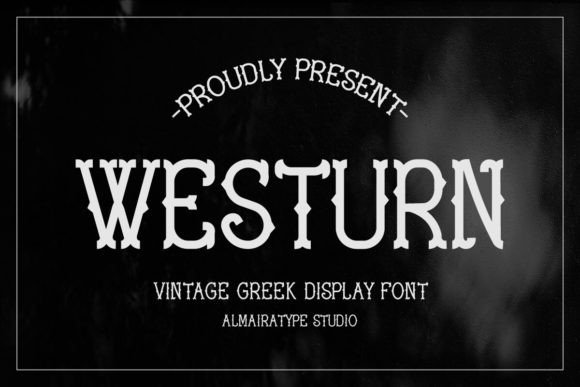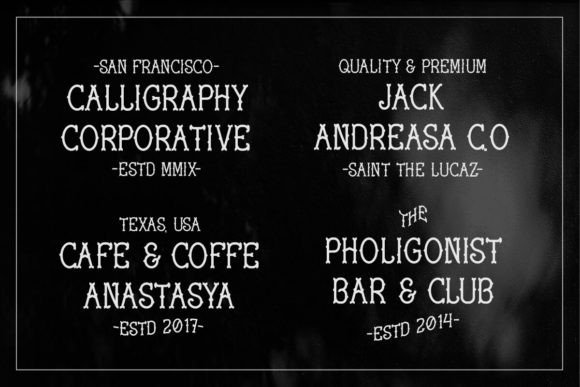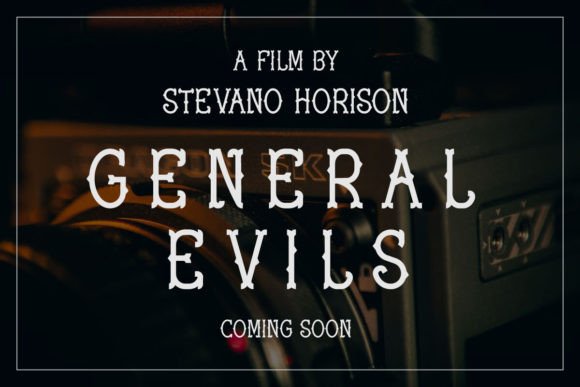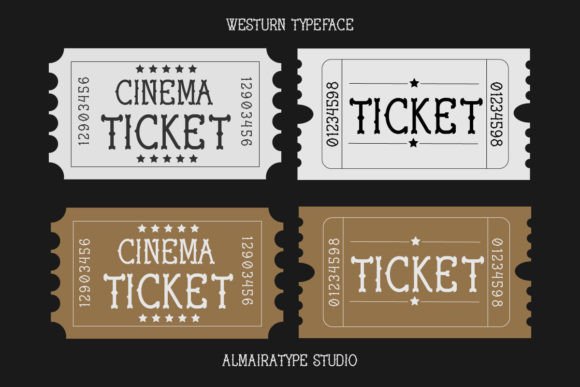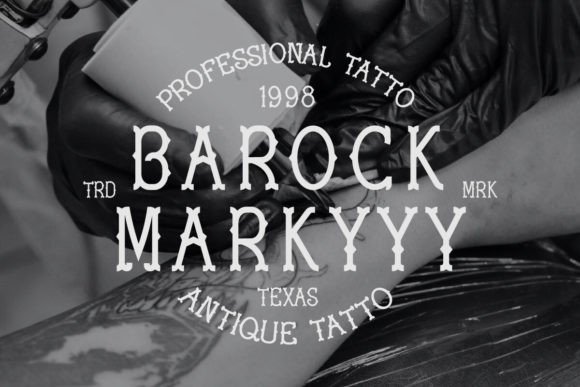
Westurn Font
About Westurn Font
Westturn is a vintage slab serif font. Font in greek style. This font is suitable for Halloween crafts, labels, DIY, craft, Cricut, vinyl, t-shirts, mugs, motivational quotes, laser cut, tumbler wrap, stickers, vintage Christmas, and many other ideas.